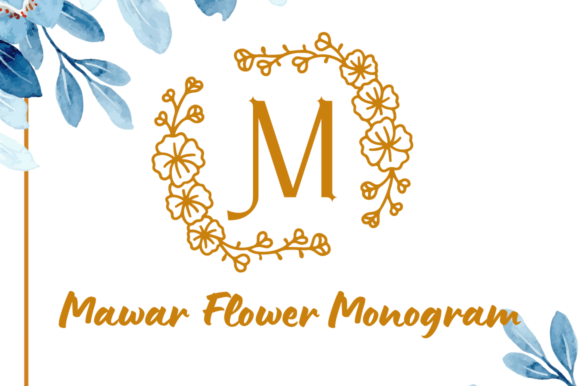
Step into a world of exquisite beauty, where letters and flowers intertwine in perfect harmony. Allow us to introduce you to Mawar Flower Monogram Font, a font collection designed to add a touch of botanical elegance to your creative projects.
Journey through a garden of intricate floral designs, each one meticulously crafted to bring a sense of nature's allure to your words. With Mawar Flower Monogram Font, transform your words into enchanting works of art, ready to captivate and inspire.
Indulge in the artistry of two distinct styles, effortlessly transitioning between uppercase and lowercase characters to unlock a world of creative possibilities. Embrace the delicate sophistication of the uppercase style, where flowers bloom in intricate detail, adding a touch of whimsical charm to your designs. Then, discover the grace and fluidity of the lowercase style, where vines and blossoms dance across your words, creating an aura of timeless elegance.
Whether you're pouring your heart into personal invitations, crafting eye-catching social media posts, or forging a unique identity for your business, Mawar Flower Monogram Font is your perfect companion. Its versatility knows no bounds, ready to elevate your projects and leave a lasting impression.
Picture your wedding invitations adorned with these enchanting florals, carrying the promise of love and everlasting joy. Envision your business cards blooming with sophistication, making a striking first impression that sets you apart. Let your logos and branding radiate with a touch of nature's charm, attracting customers with their captivating beauty.
Mawar Flower Monogram Font is the key to unlocking a world of artistic expression. With its enchanting botanical designs and versatile styles, this font collection will transform your words into captivating creations that speak to the heart.
So, embrace the beauty of nature and let Mawar Flower Monogram Font guide you on a creative journey like no other. Discover the endless possibilities that await within this exquisite font collection and watch your designs blossom into masterpieces.